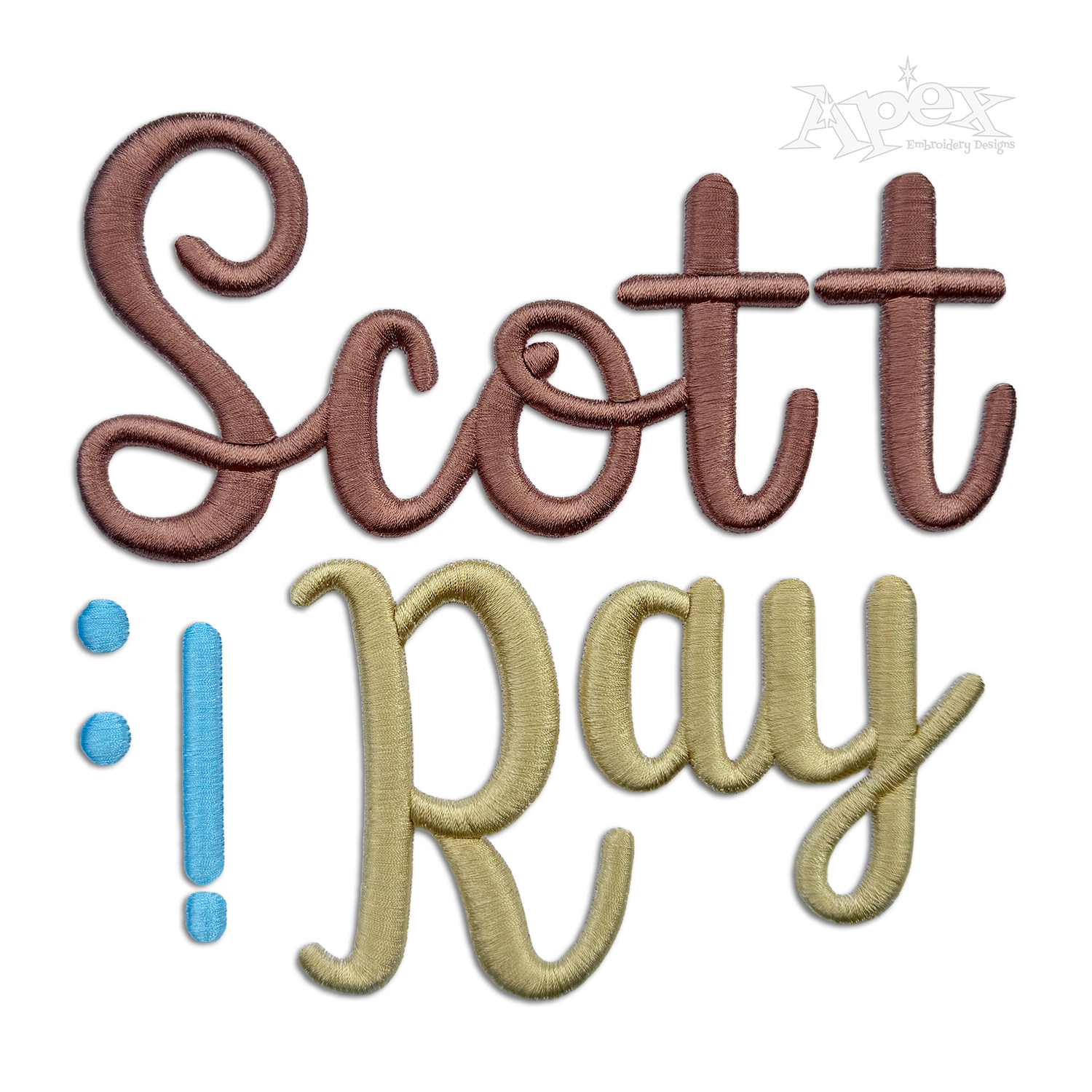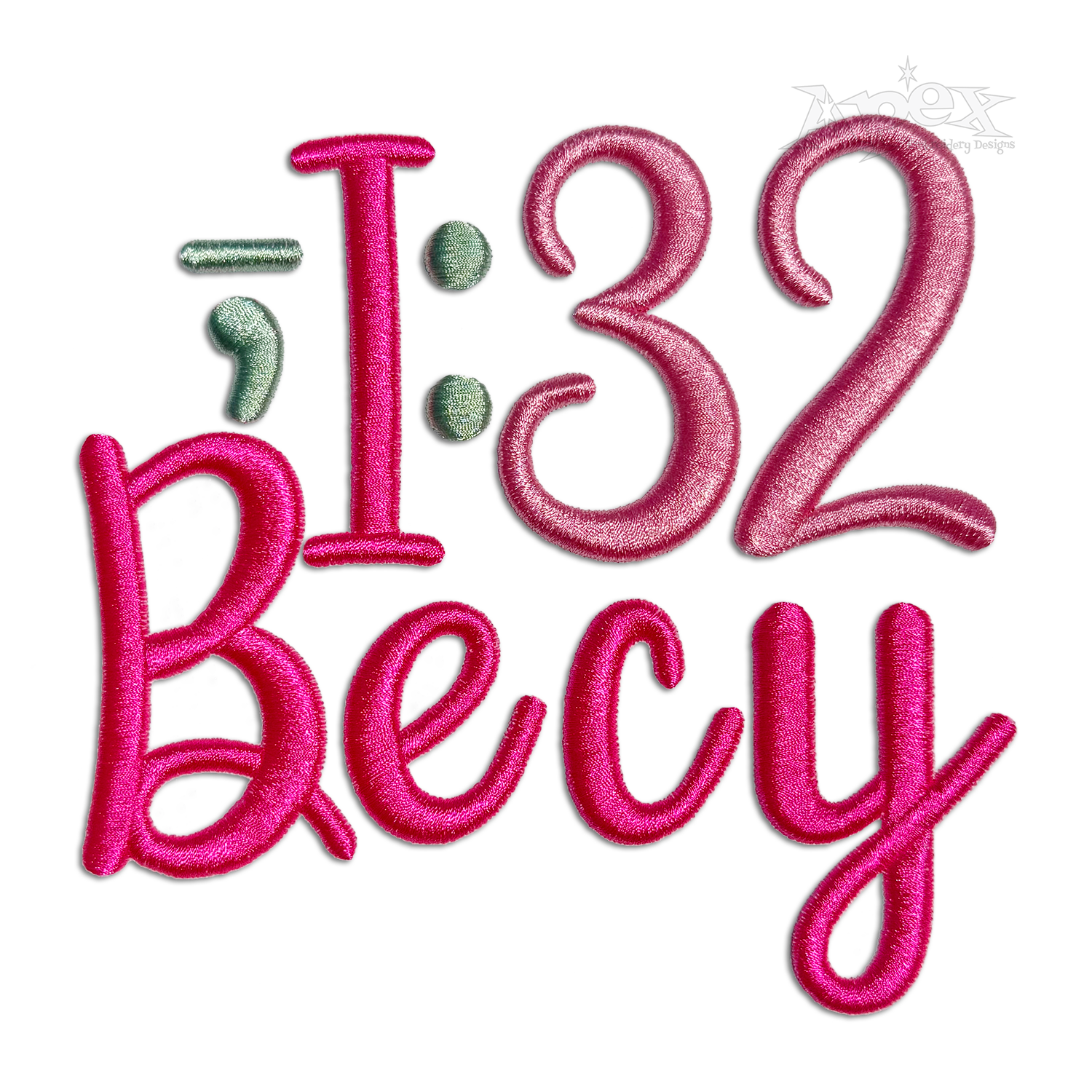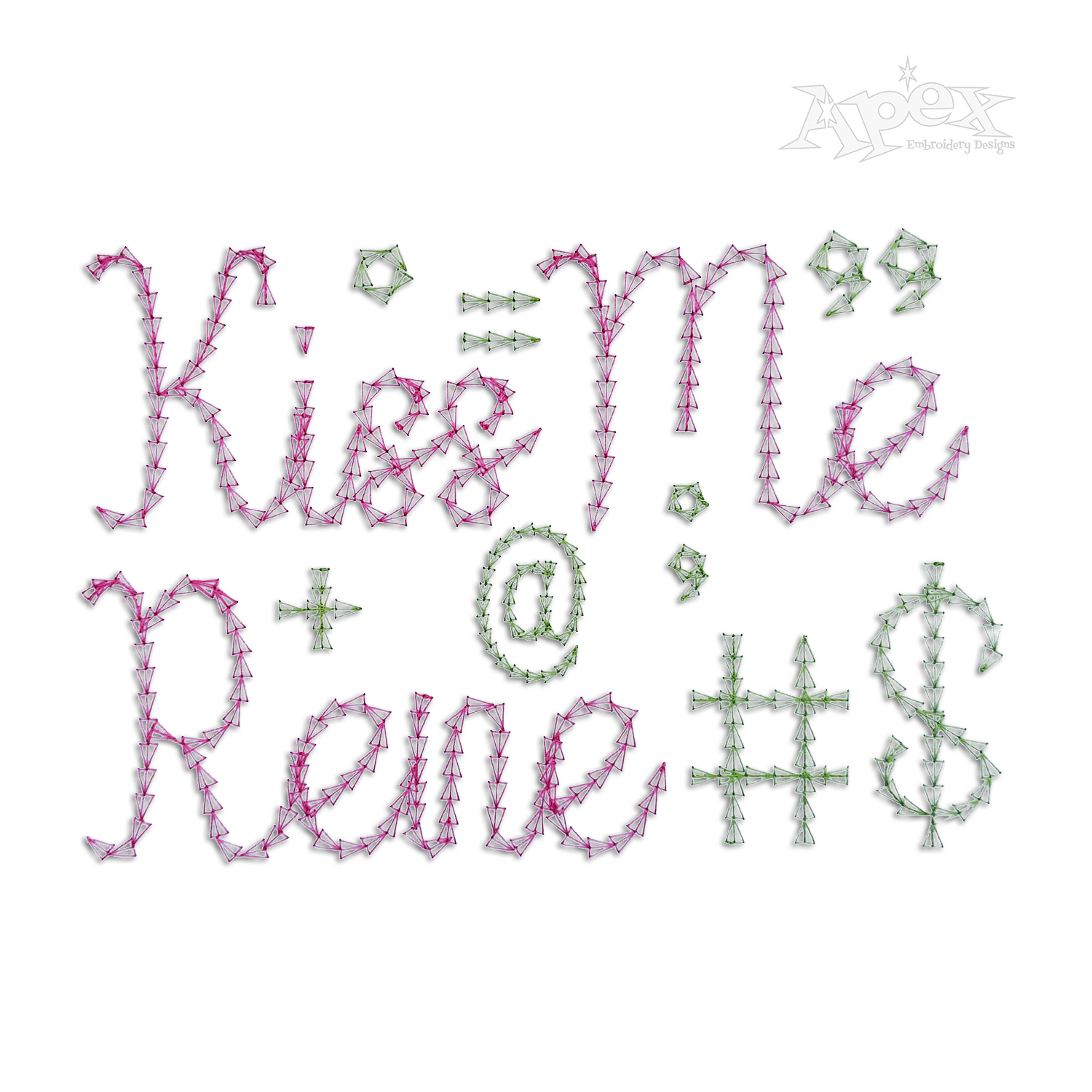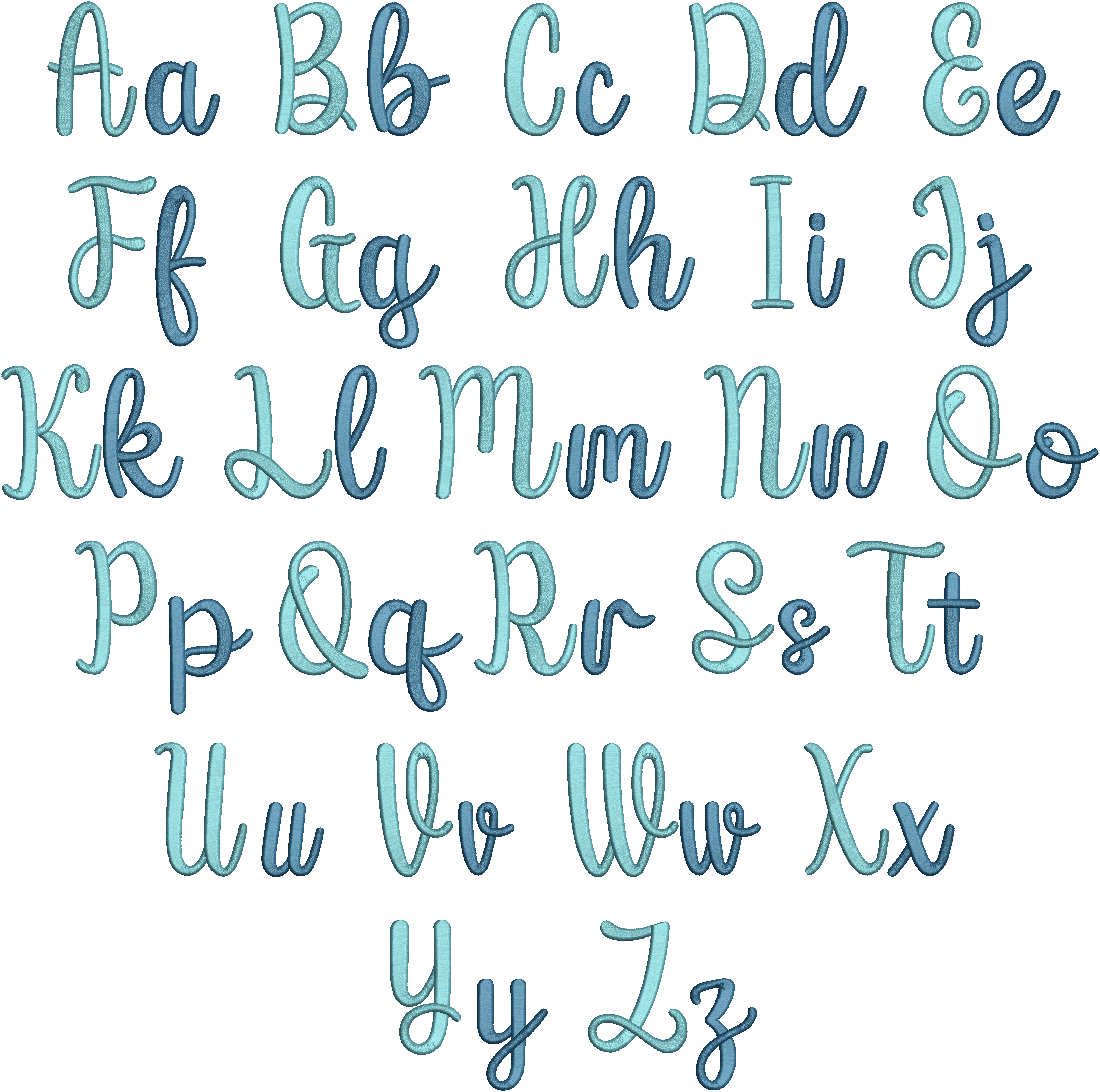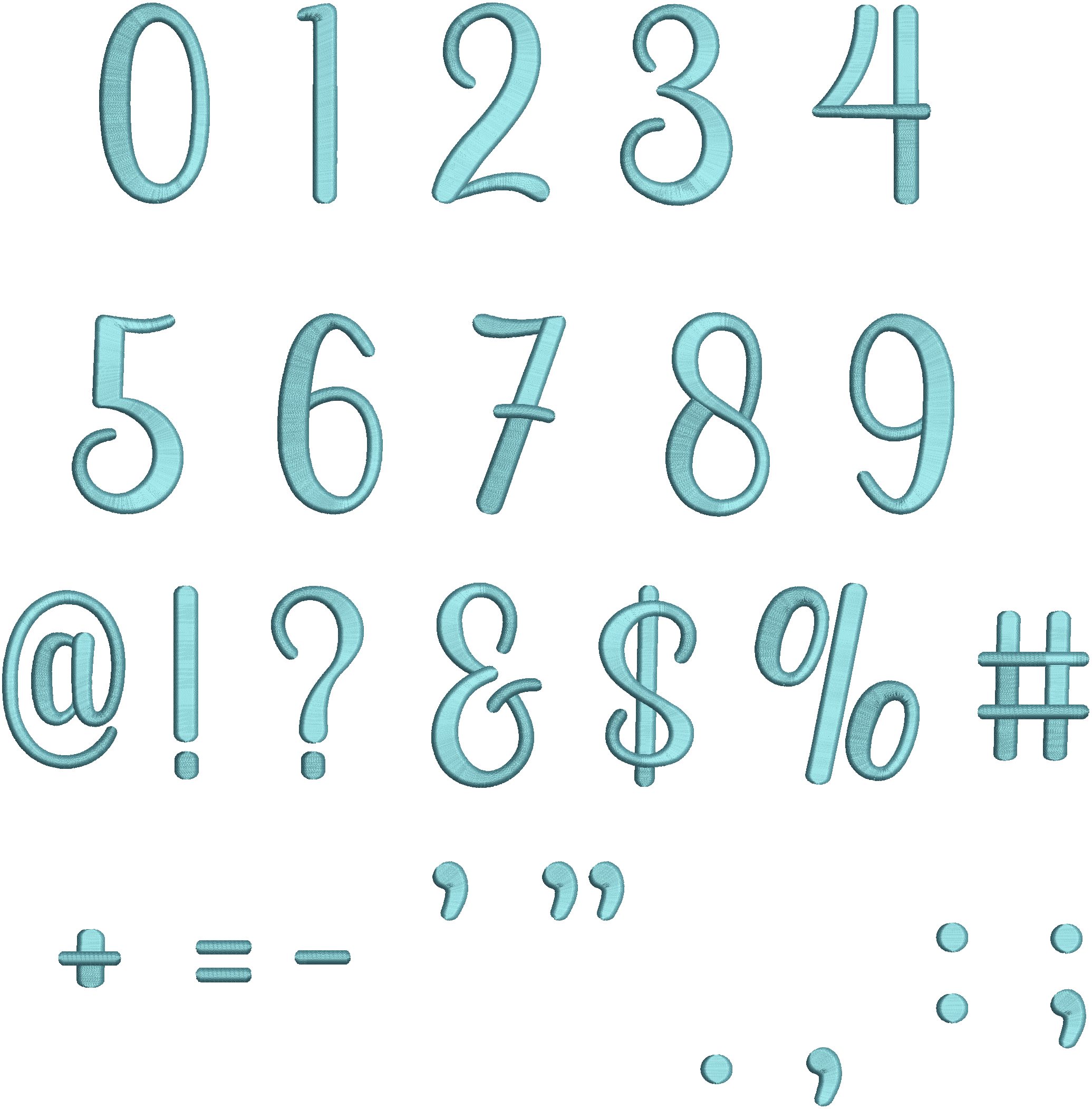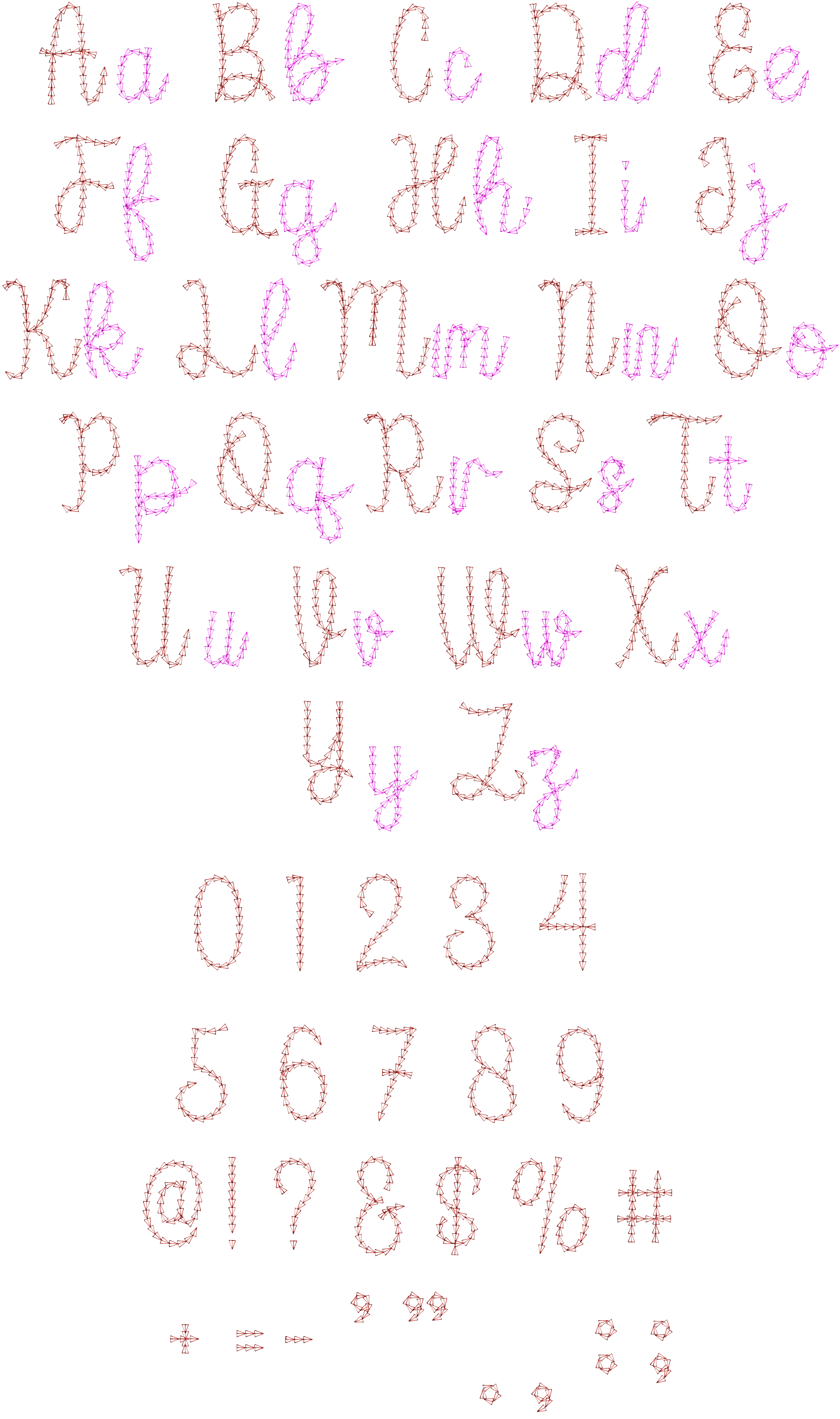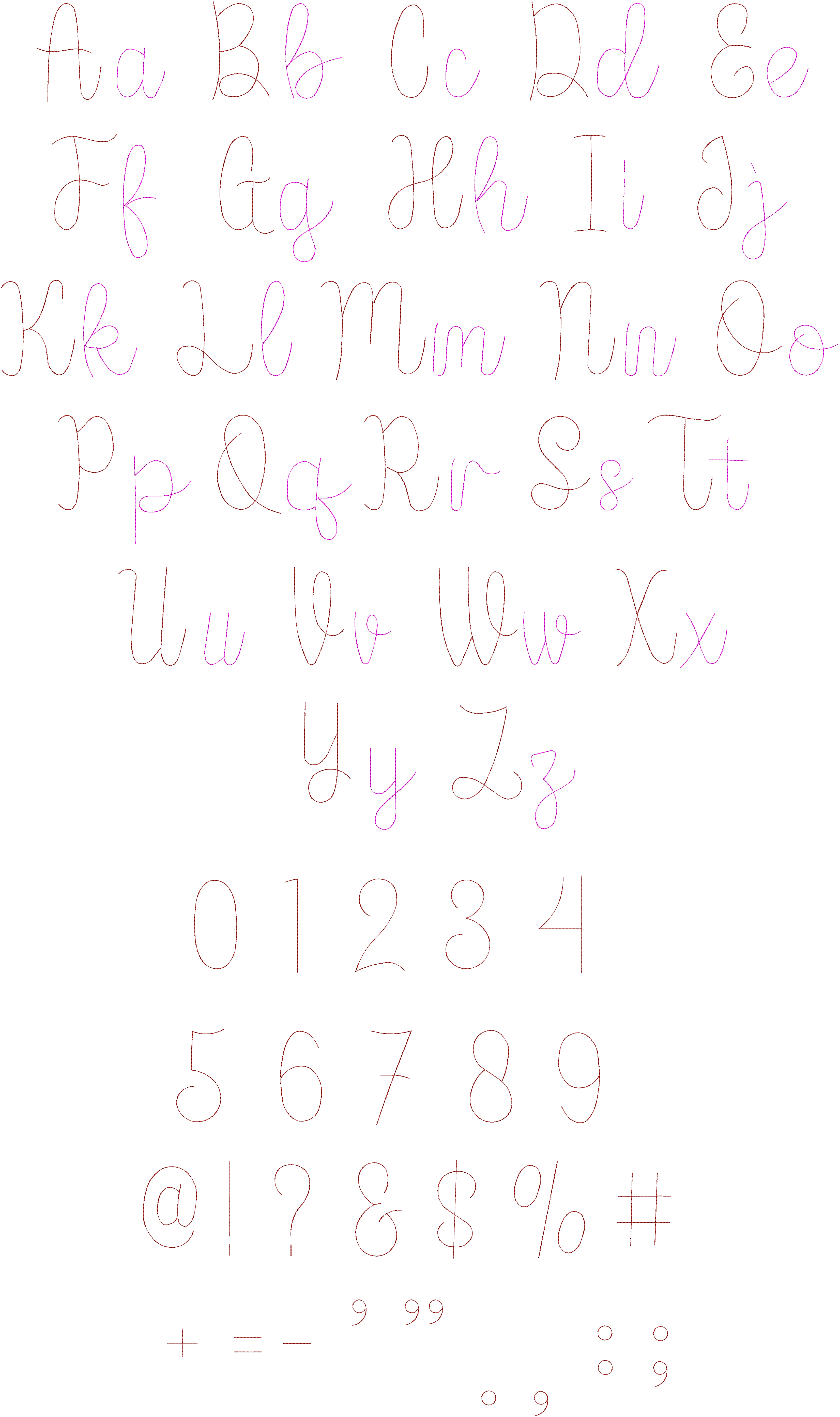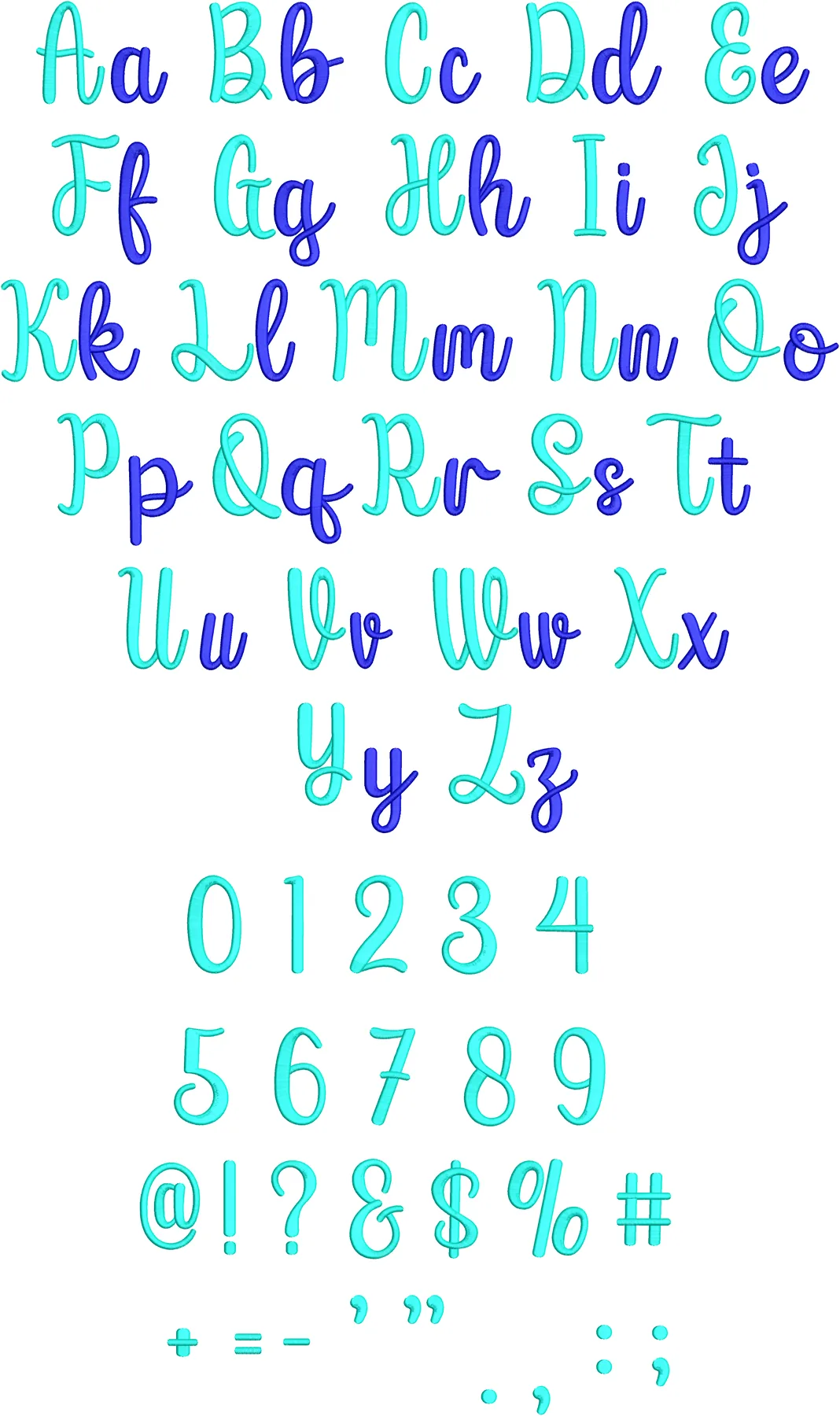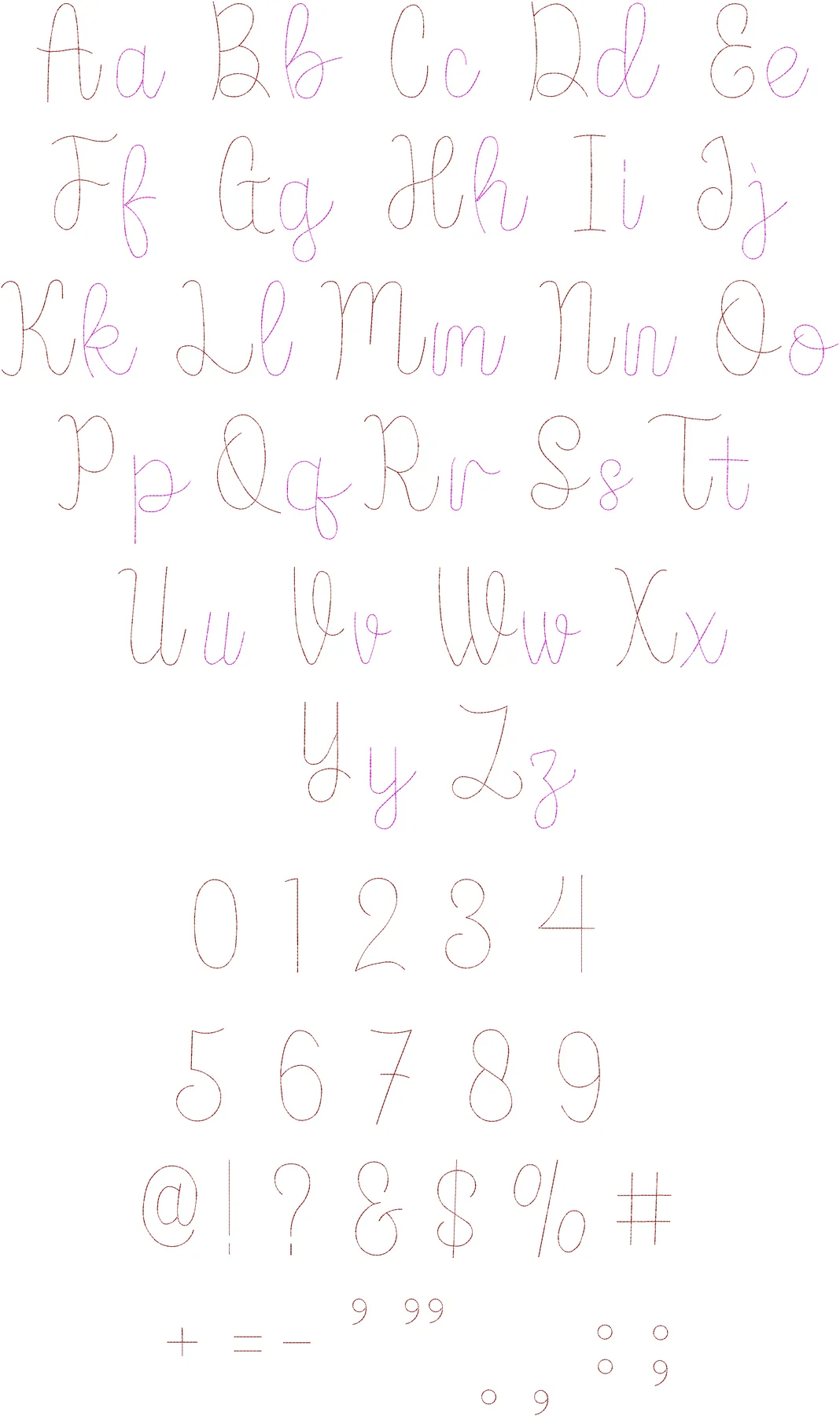
Cyrus Script Regular, 3D Puff & Chain Stitch Embroidery Font Bundle
Create elegant personalized with names Cyrus Script Bundle. This cool cursive script embroidery set is perfect for customizing hats, linens, towels, baby gifts, tote bags, and more. Included All Letters A-Z Upper and Lowercase and 0-9 Numbers.
Cyrus Script embroidery font collection includes complete size sets with cursive script letters designed for creating stunning personalized names. Each font comes professionally digitized for smooth stitching and excellent embroidery results.